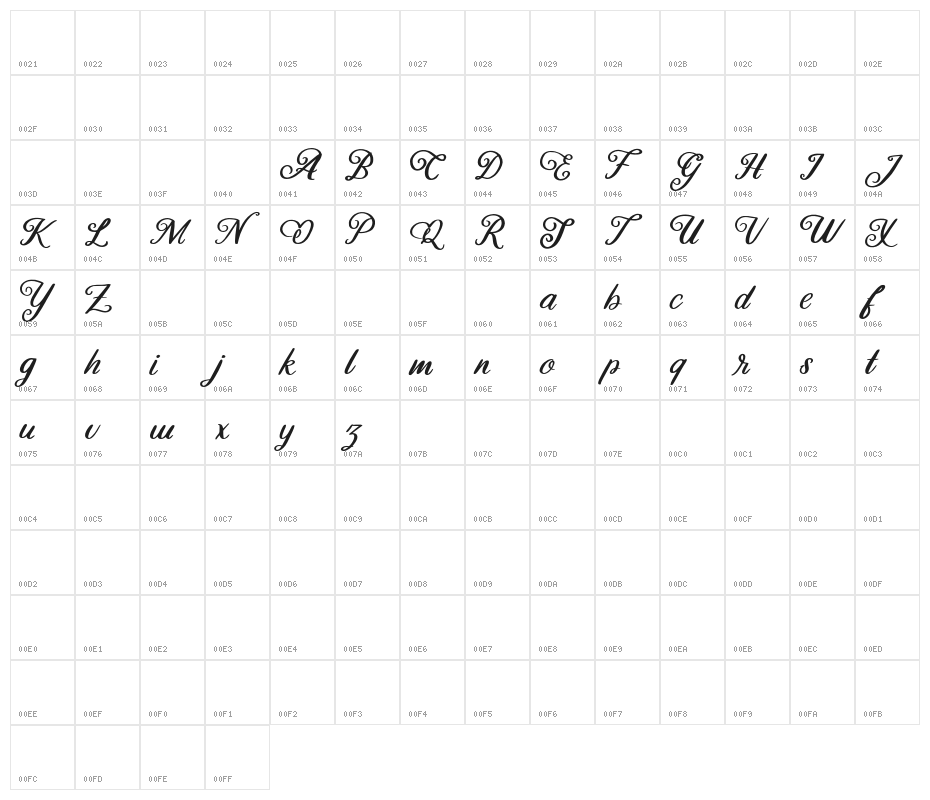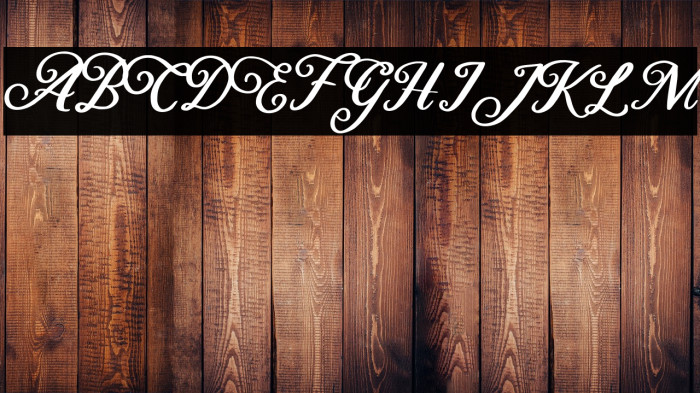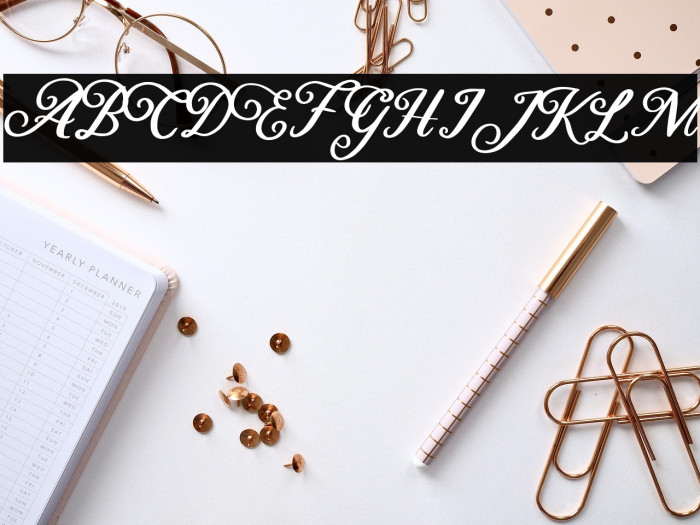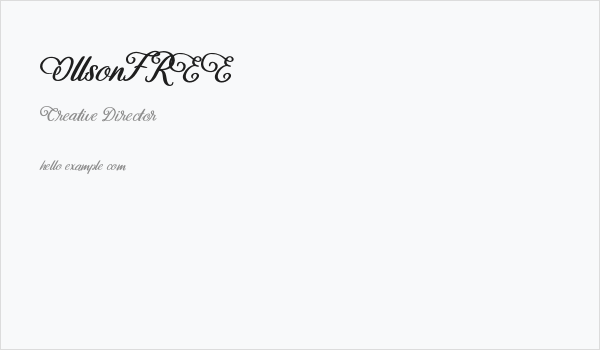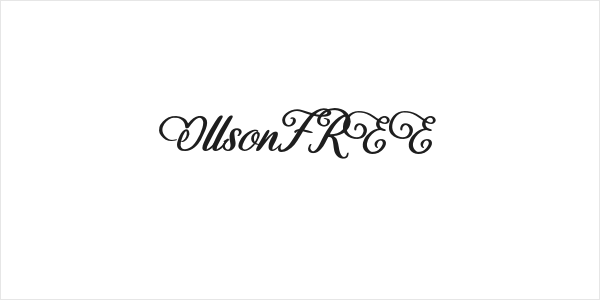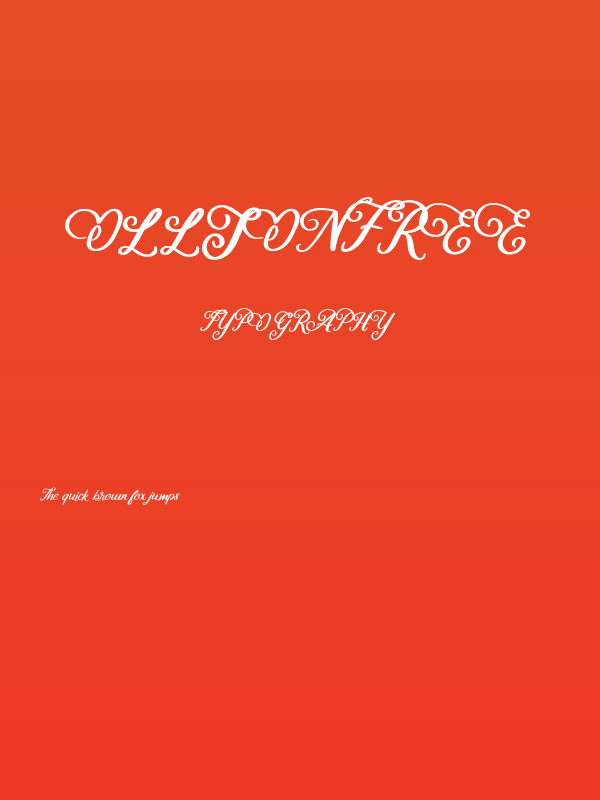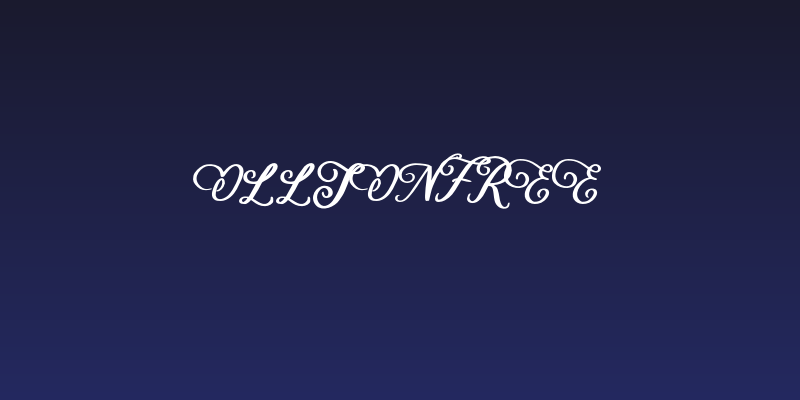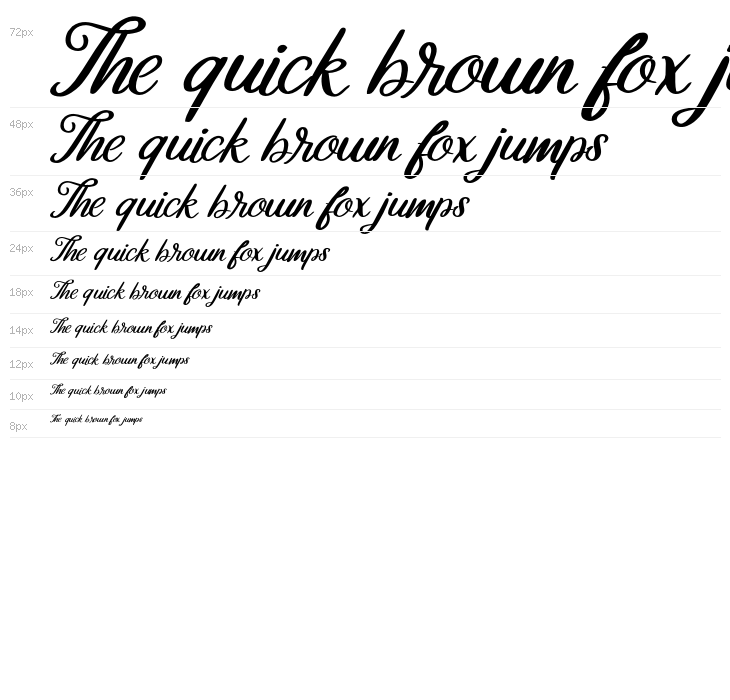
OllsonFREE Font
OllsonFREE Description
This font features an elegant and flowing script style, characterized by its intricate and decorative curves. The uppercase letters are particularly ornate, with loops and swirls that give a sense of sophistication and grace. The lowercase letters maintain a consistent flow, with smooth connections between each character, enhancing readability while retaining an artistic flair. The overall design is reminiscent of classic calligraphy, making it suitable for formal and decorative applications. The font's bold strokes and high contrast between thick and thin lines add to its visual impact, making it stand out in various design contexts.
| Use Case | Headlines, Logos, Decorative text |
| Proposed Projects | Ideal for wedding invitations, elegant branding, greeting cards, and decorative headings. |